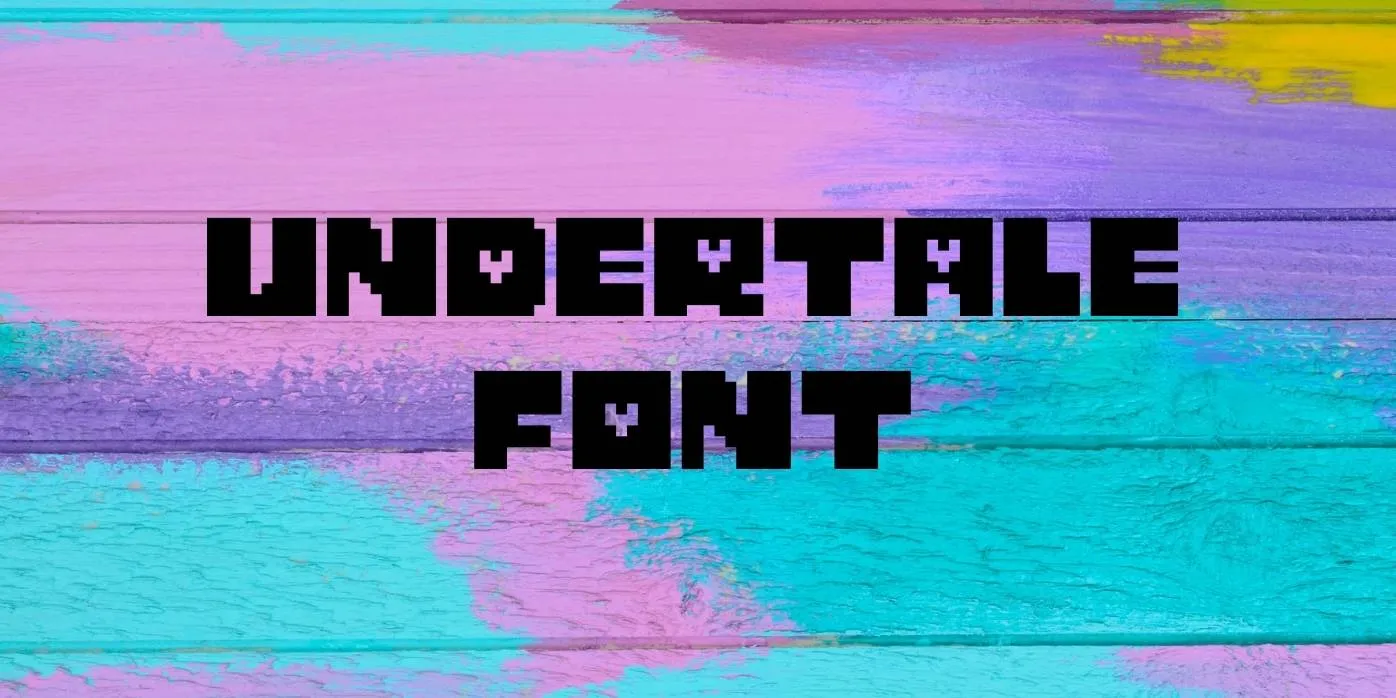
Undertale Logo Font
Here, we are presenting the most popular Fancy typeface named Undertale Logo Font. This eight-bit font is designed by an intelligent designer known as Harry Wakamatsu. Basically, this classy font is released window and OS X in the year 2015. After getting honer and taking the best response from clients it is used for further Play Station 4, and Linux.
It is designed for use in the most popular video games. It is a gaming font that is used in different games. This typeface is frequently used for the logo of famous video games. After passing some time, this font family became more popular and effective and use for so many online video games.
It provides the best results for a popular online game named Undertale. This font has also pixel art. Coco Biker Font is similar to this amazing font family. This also provides the best interface in various designing fields.
This astonishing font comes in 2 classic styles. Black and fore are its two styles that make its performance more powerful and Bold. Because of this reason this font is frequently selected by a huge number of designers. This font provides the facility of an online generator that helps in making various logo designs.